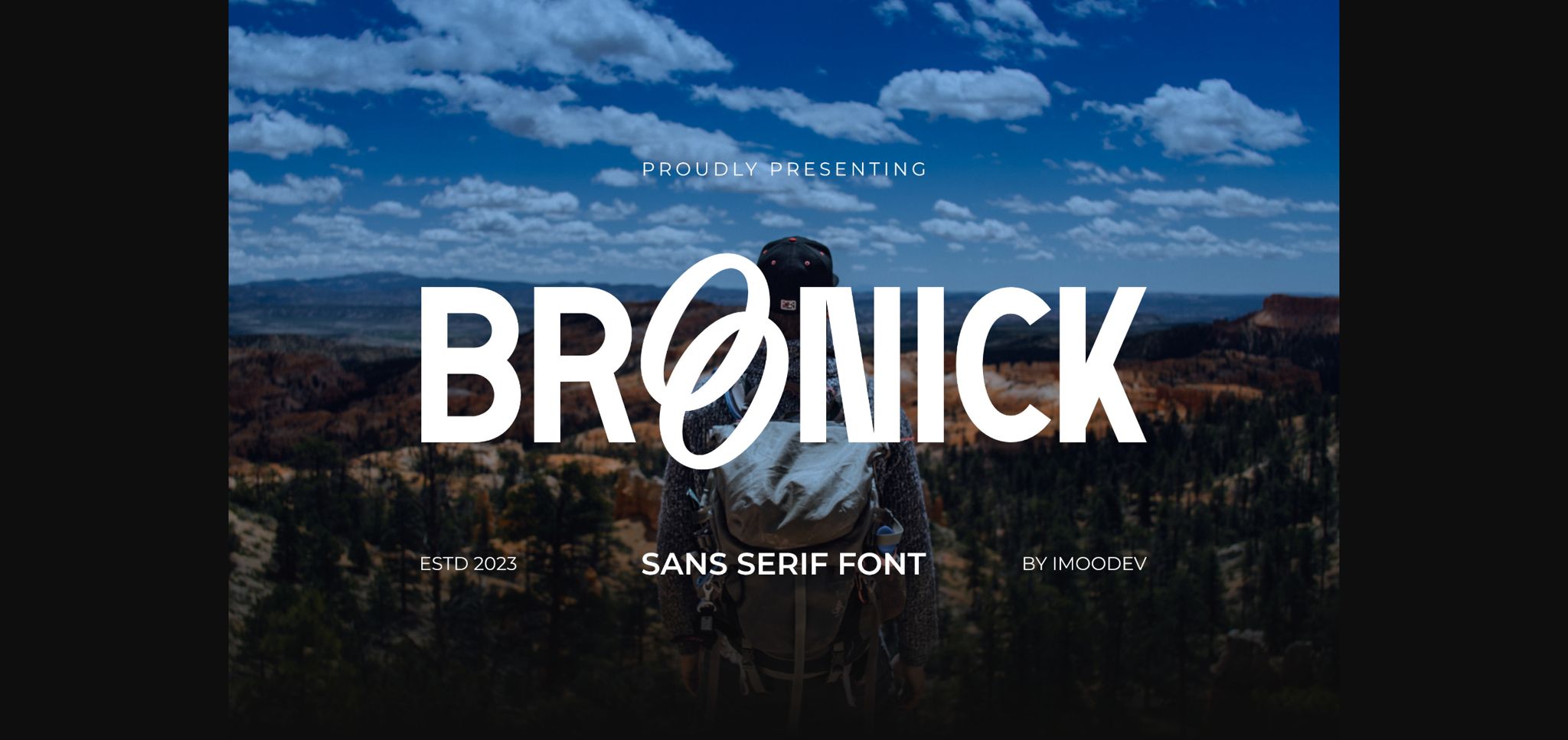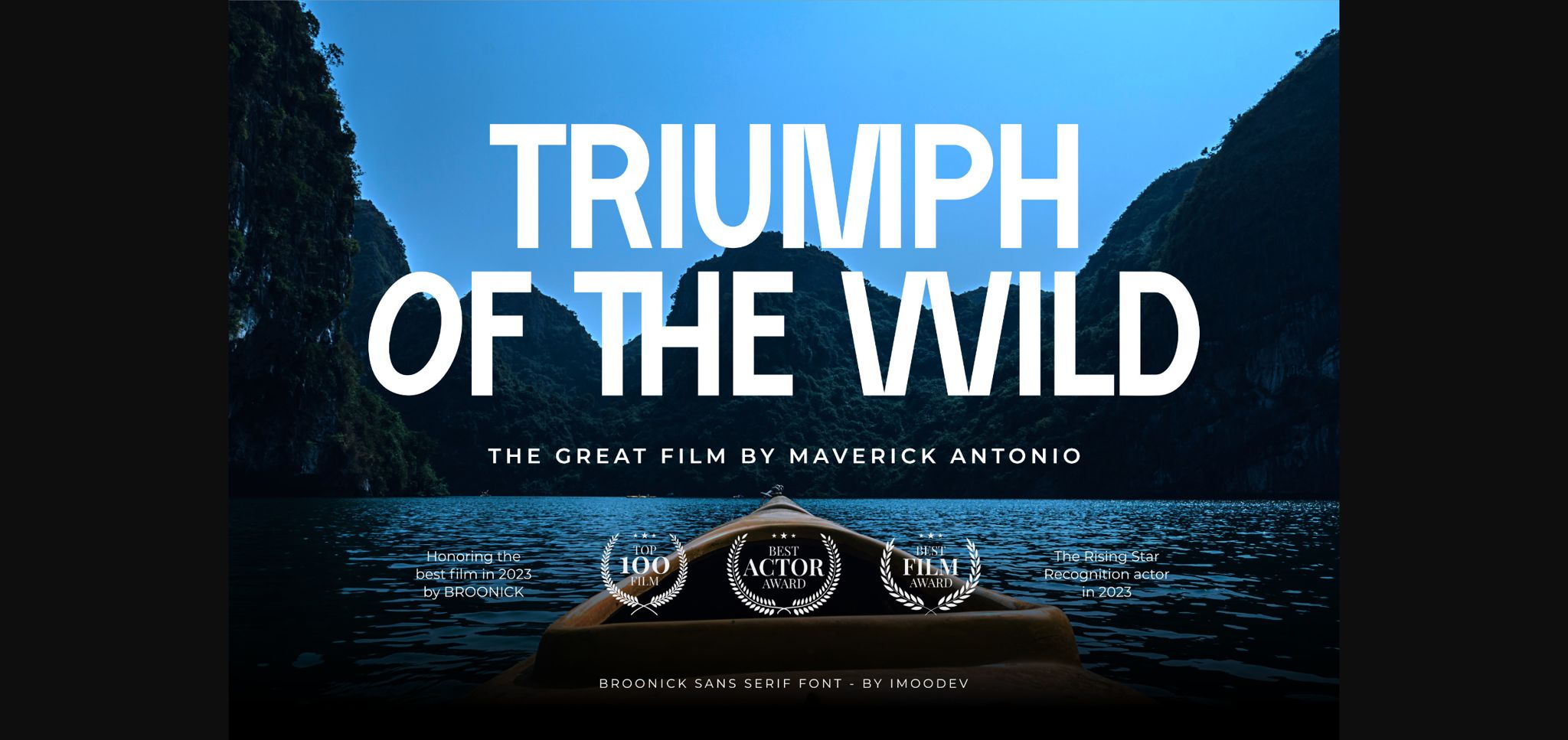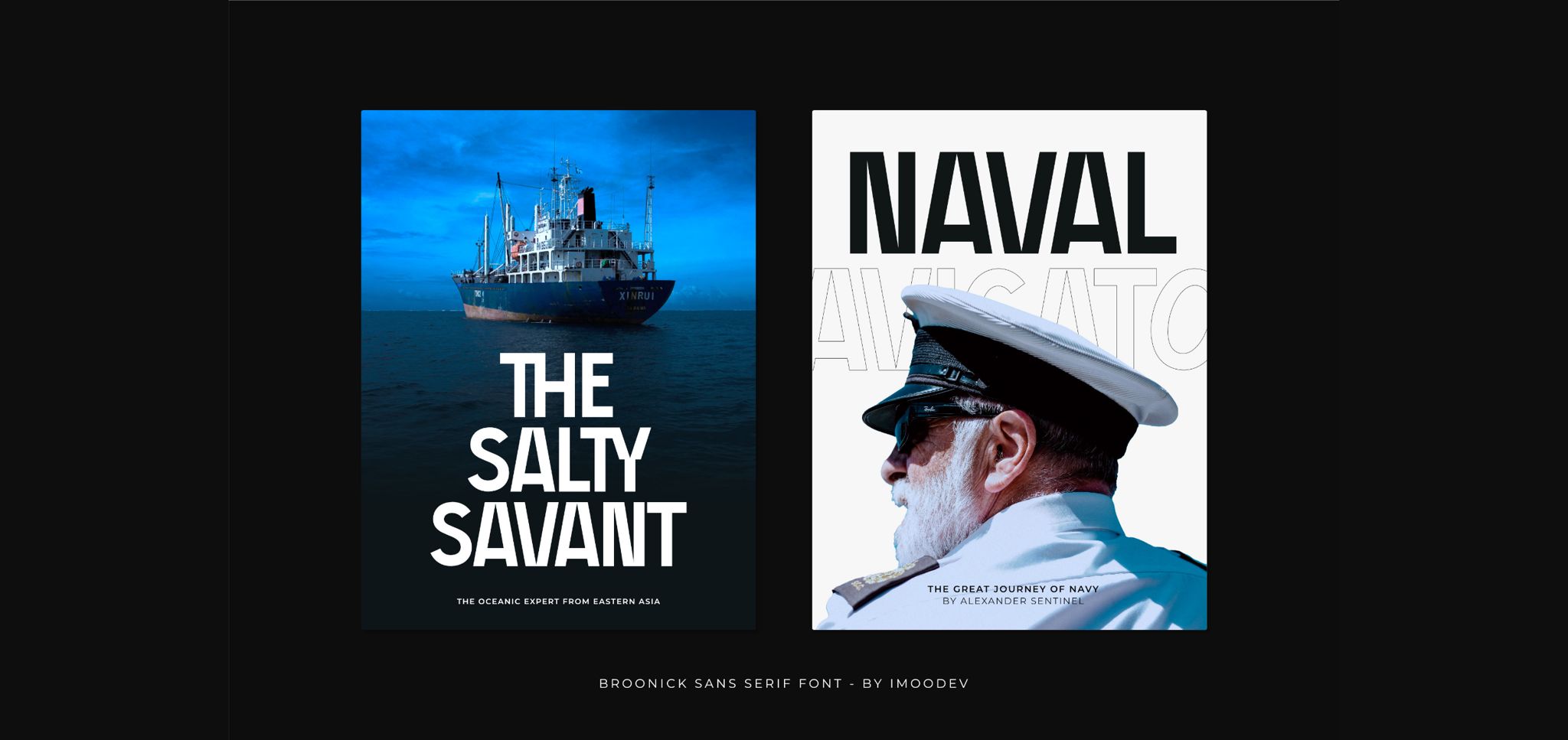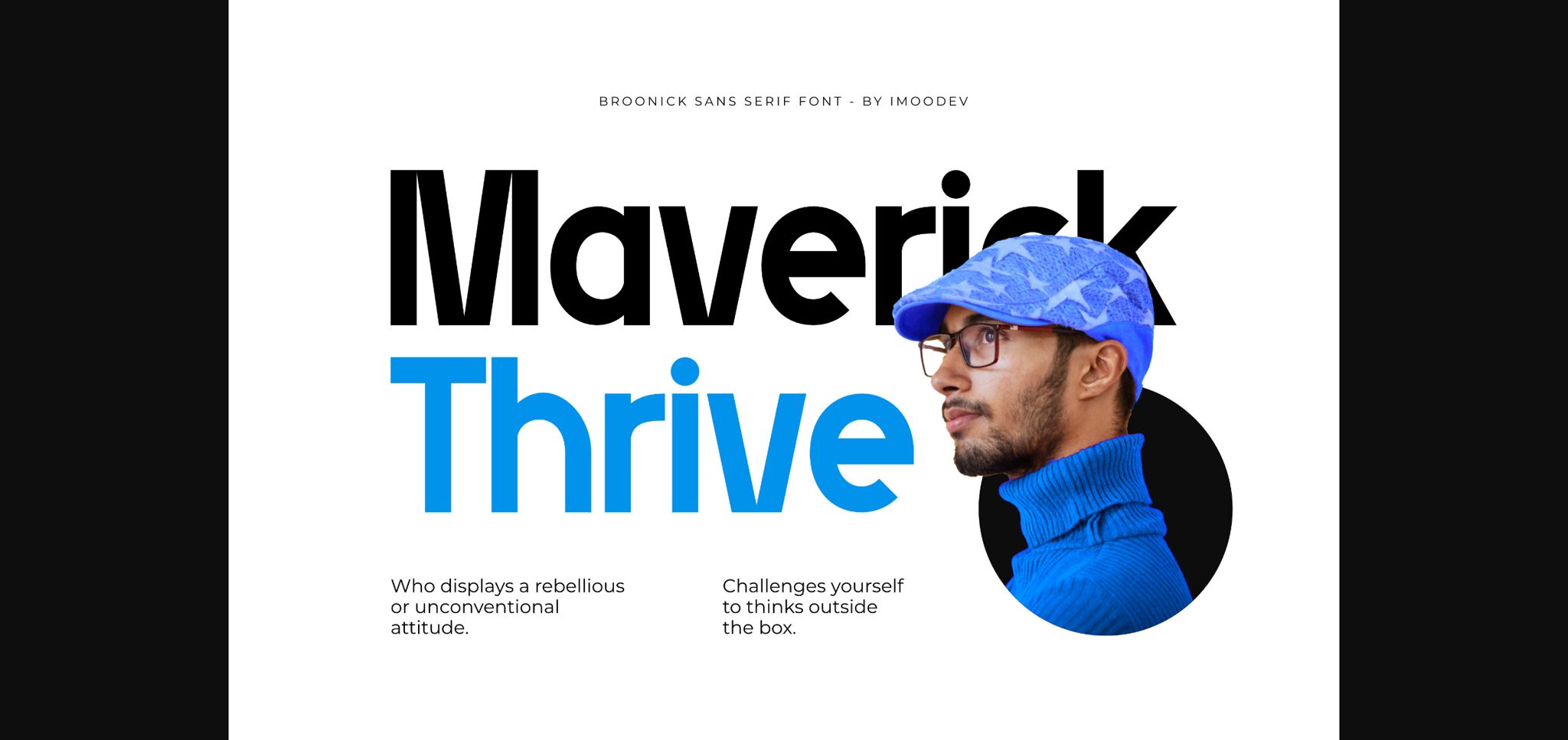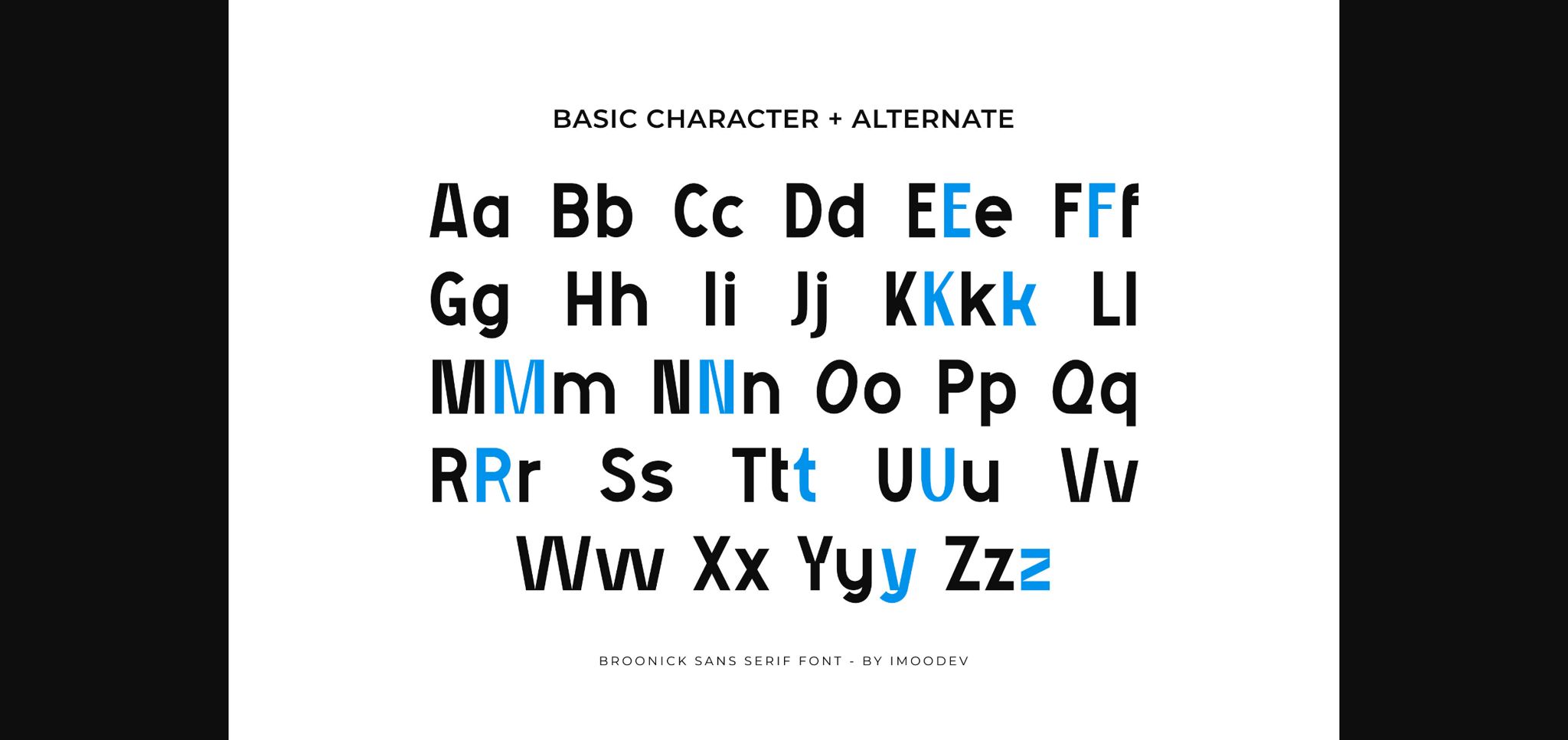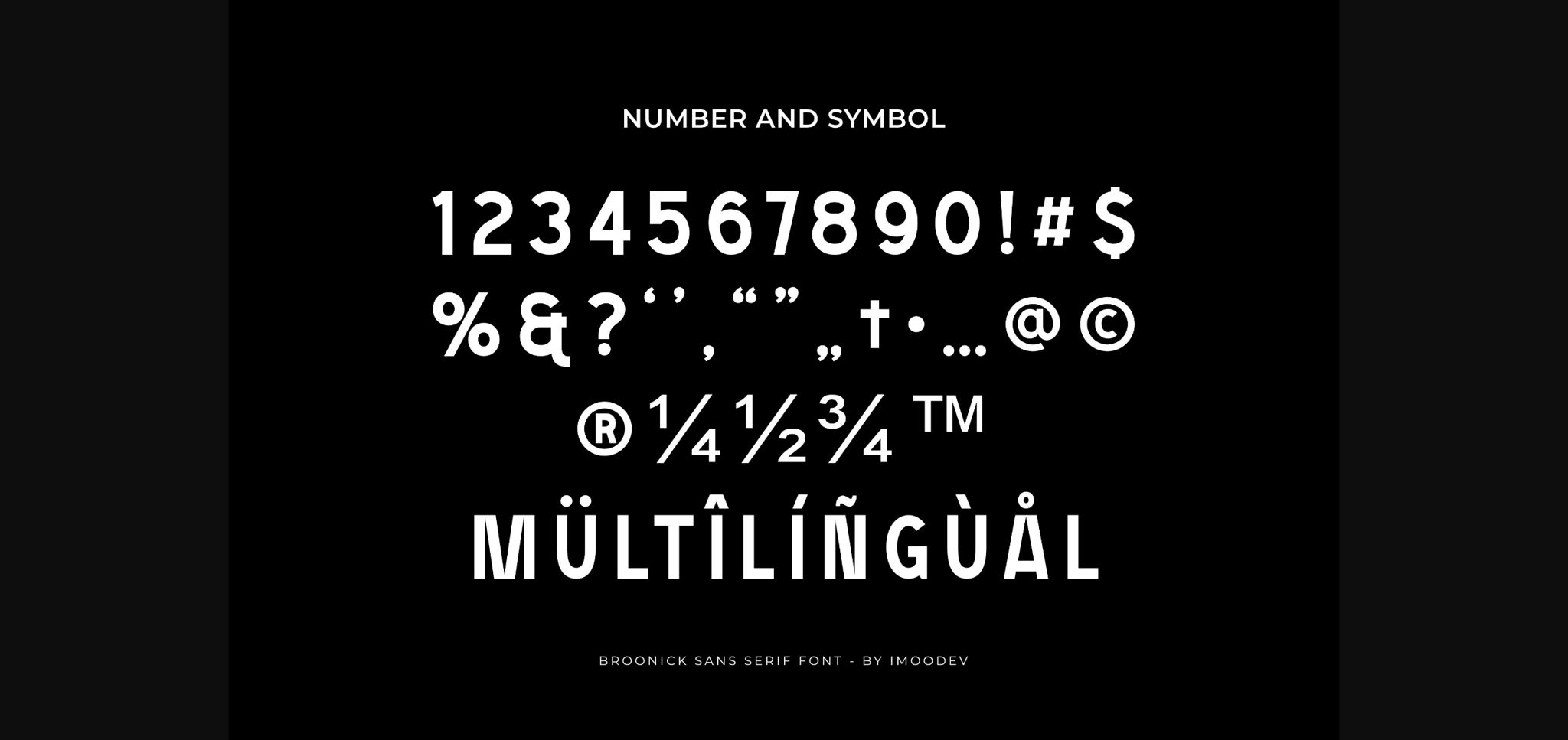
HomeSans Serif FontsBroonick Font Sans Serif Fonts Broonick Font FacebookXPinterestWhatsApp 1 of 8 ... Broonick Font Poster 2... Broonick Font Poster 3... Broonick Font Poster 4... Broonick Font Poster 5... Broonick Font Poster 6... Broonick Font Poster 7... Broonick Font Poster 8... About Broonick Font Broonick is a modern and stylish sans serif font. With its unique yet versatile look, this font will work in a great variety of contexts. DOWNLOAD NOW People also explored Paperlight Script Font Knock Down Font I Am Witches Font Elementary Basic Font Sugarmilk Font Gnuolane Jump Dino Lena Font Bryan Kimberly Font Coffee First Font 322 0 TagsBroonick Font Previous articleVelvet FontNext articleFilosofi3 Finger Font LEAVE A REPLY Cancel reply Comment: Please enter your comment! Name:* Please enter your name here Email:* You have entered an incorrect email address! Please enter your email address here Website: Save my name, email, and website in this browser for the next time I comment. Personal Use Free Houstonville Personal Use Free Read more about this font Engine Personal Use Free Read more about this font Happy Santa Personal Use Free Read more about this font Mike Ferrari 16017 Personal Use Free Read more about this font BLOG Free Fonts Risk: Why Free Fonts Can Be Dangerous for Designers Free Fonts Risk: Why Free Fonts Can Be Dangerous for Designers Using free fonts is a common practice in web and graphic design. However, the... Using Fonts in Digital Marketing: Tips to Strengthen Your Brand Identity Exploring Font Trends Top 10 Handwritten Fonts That Elevate Your Designs